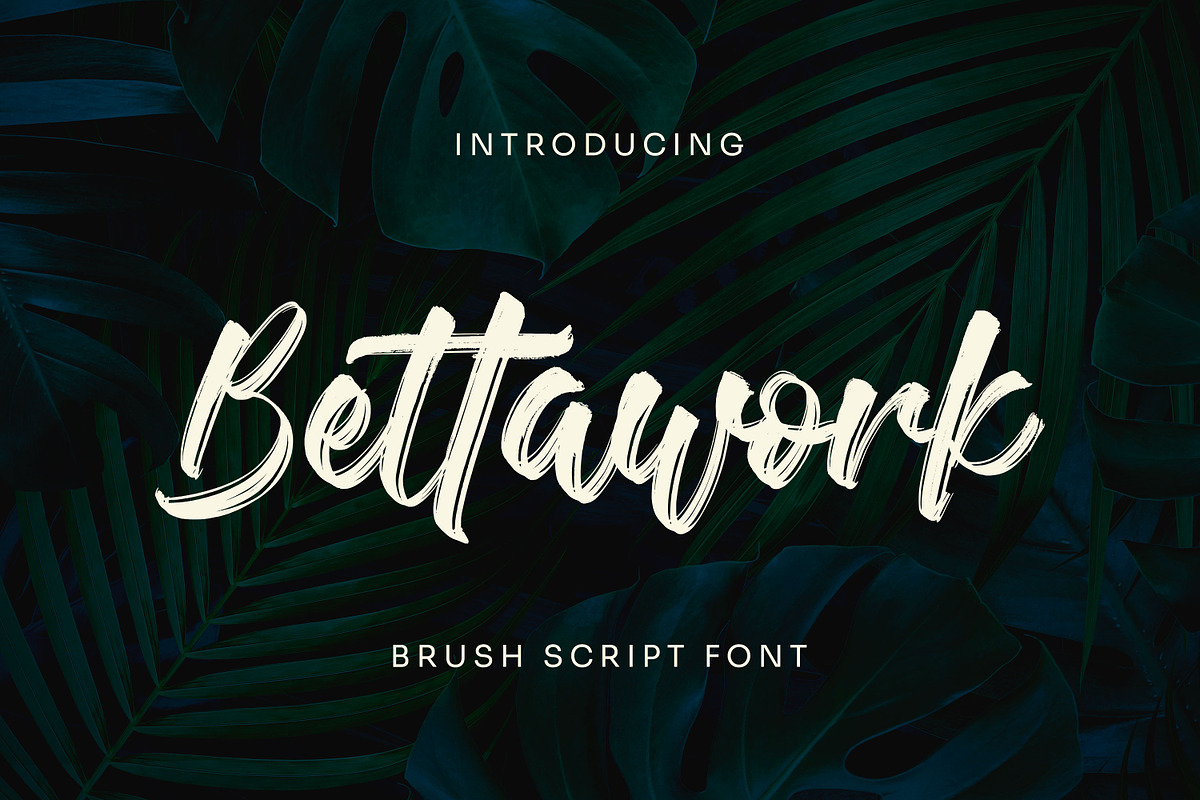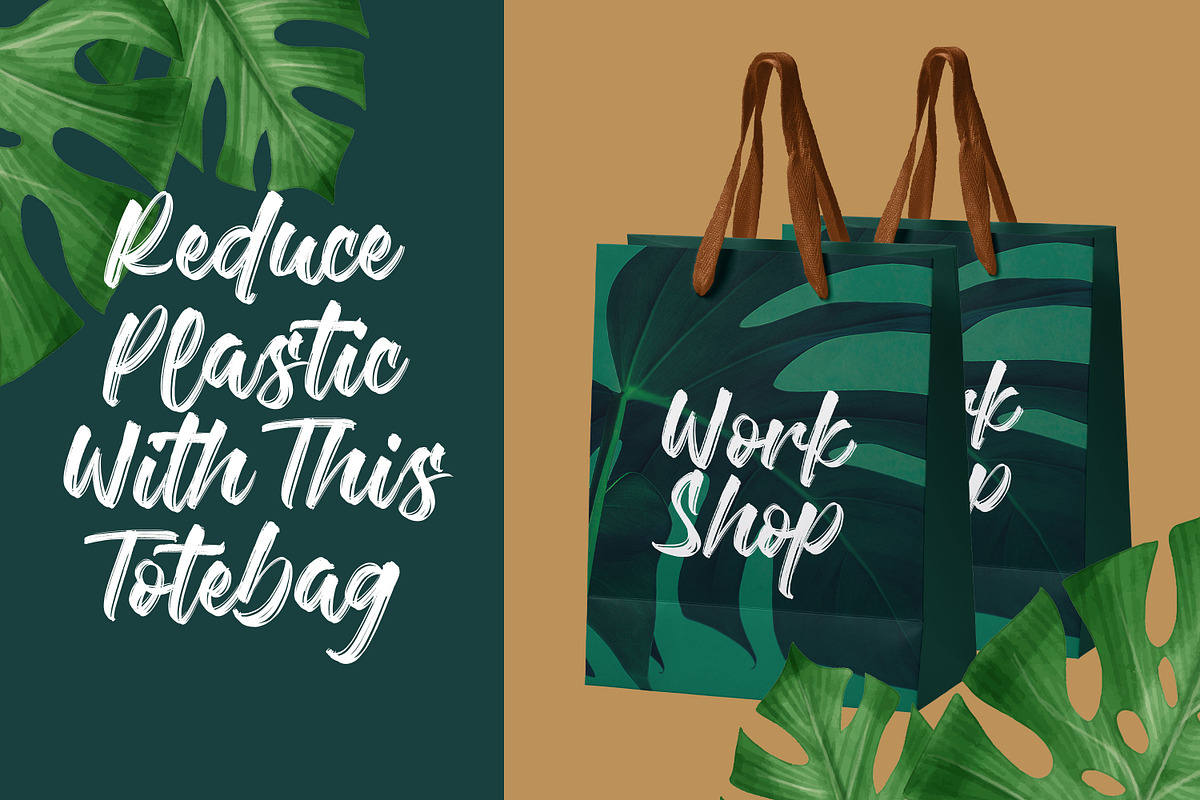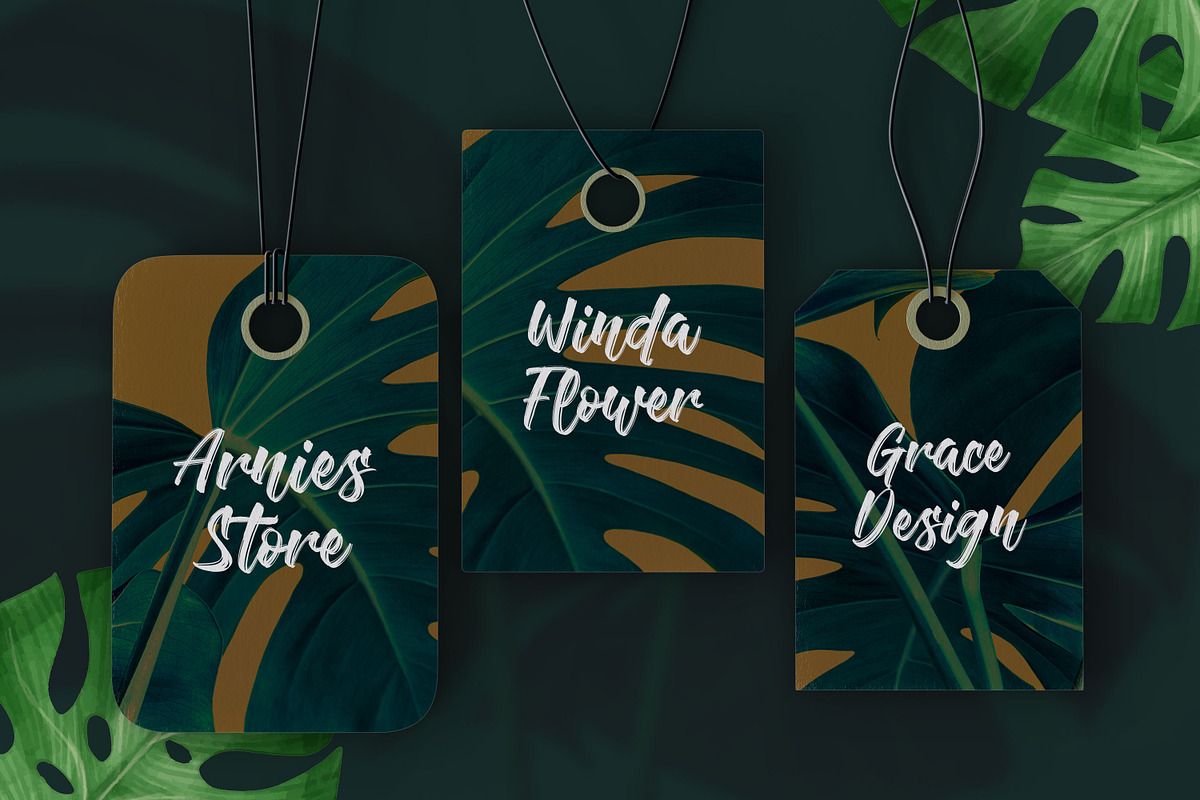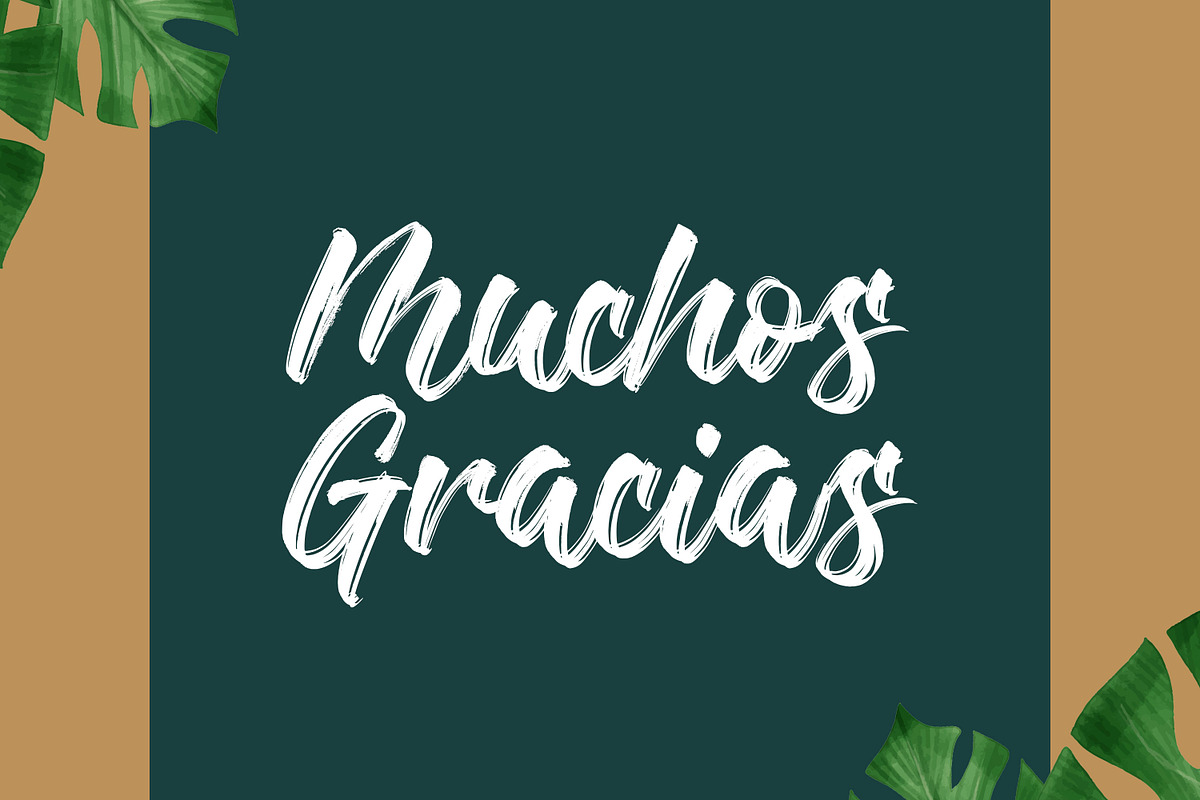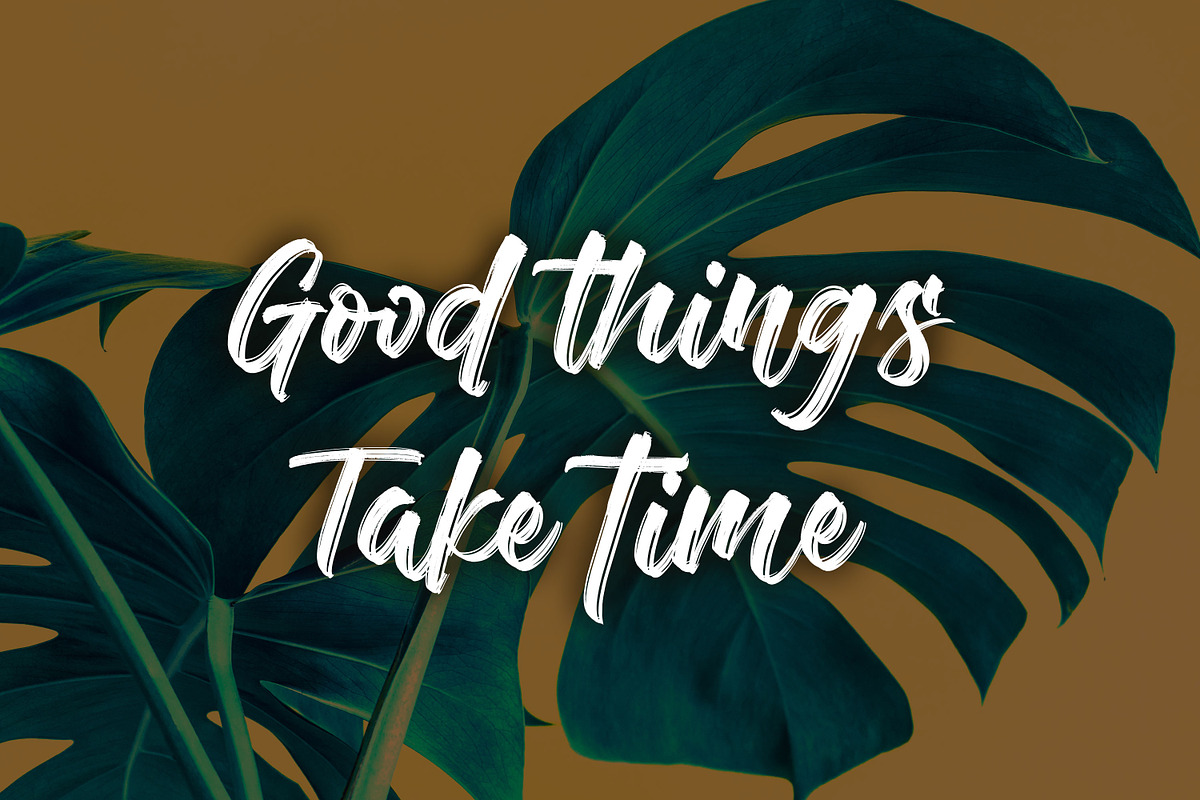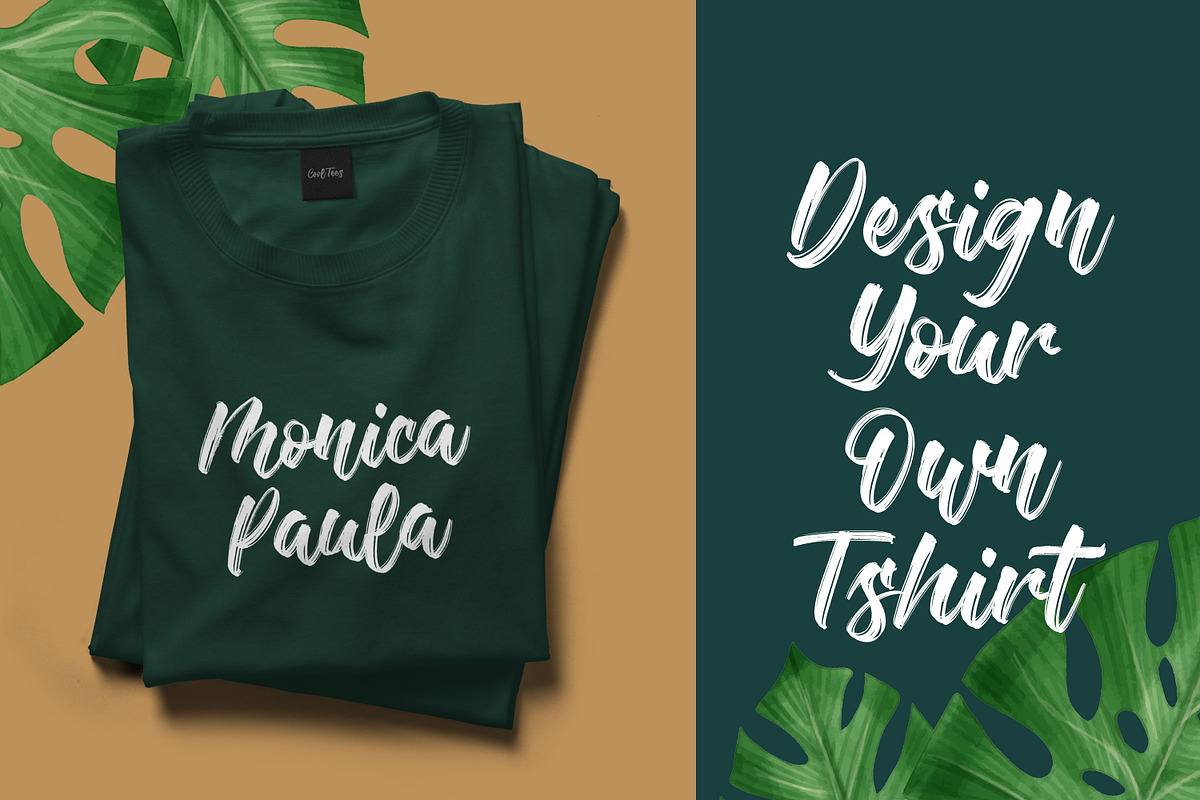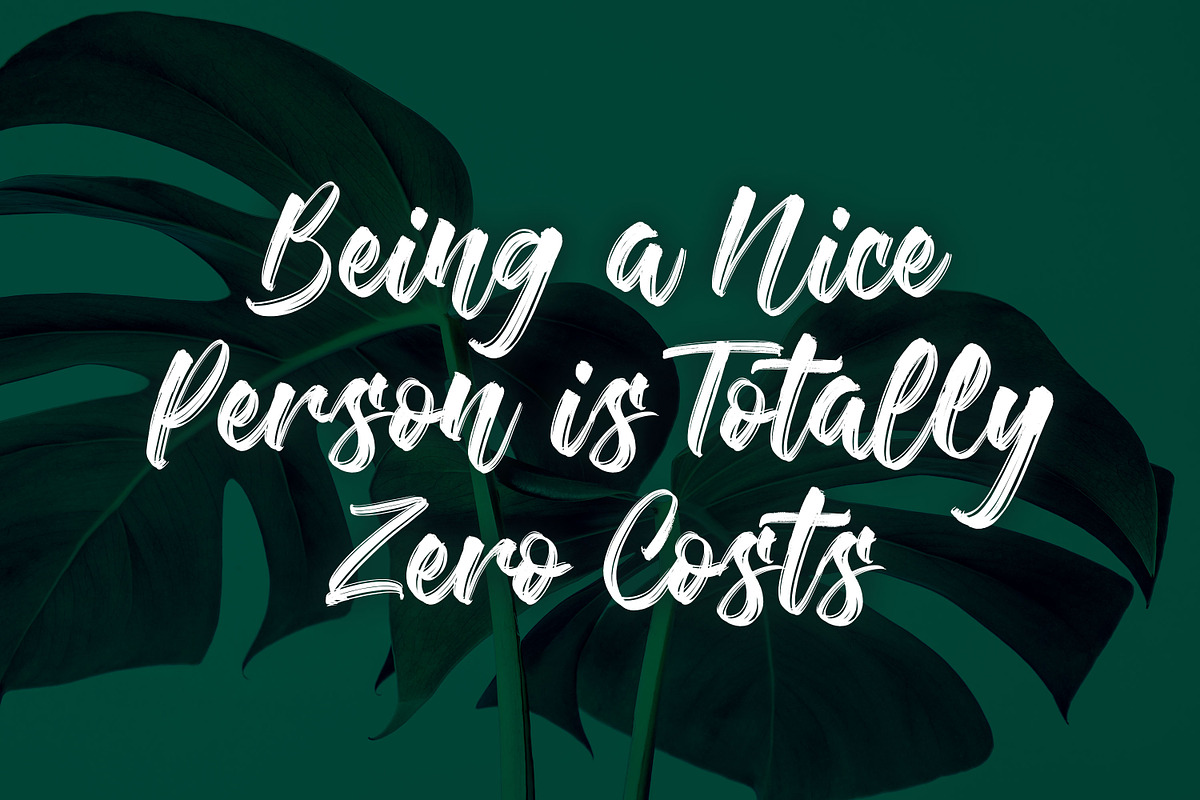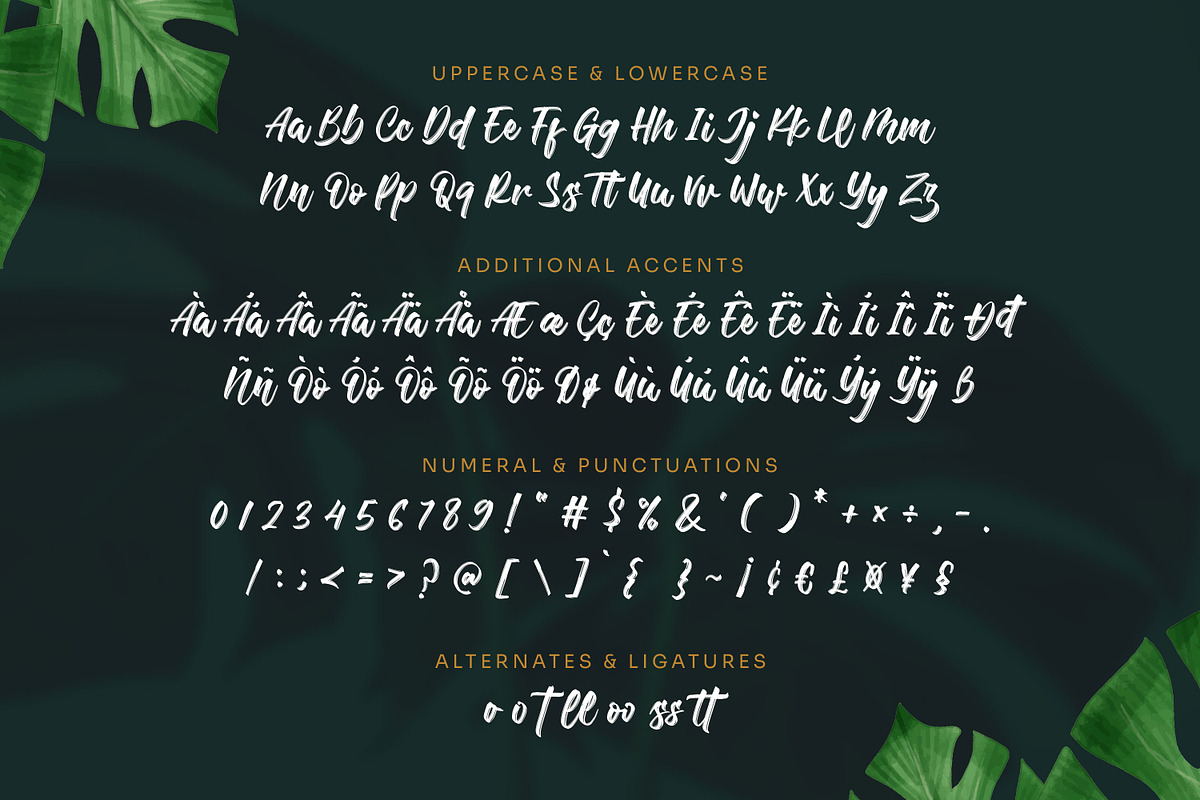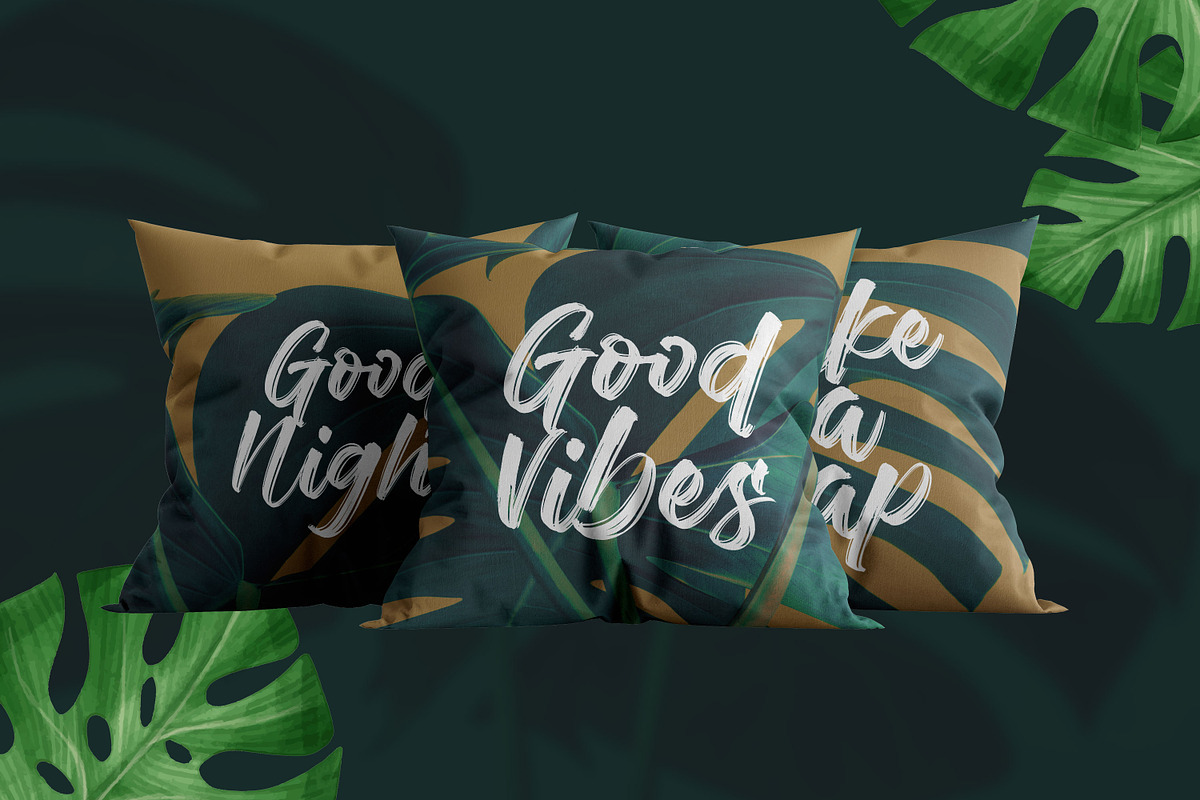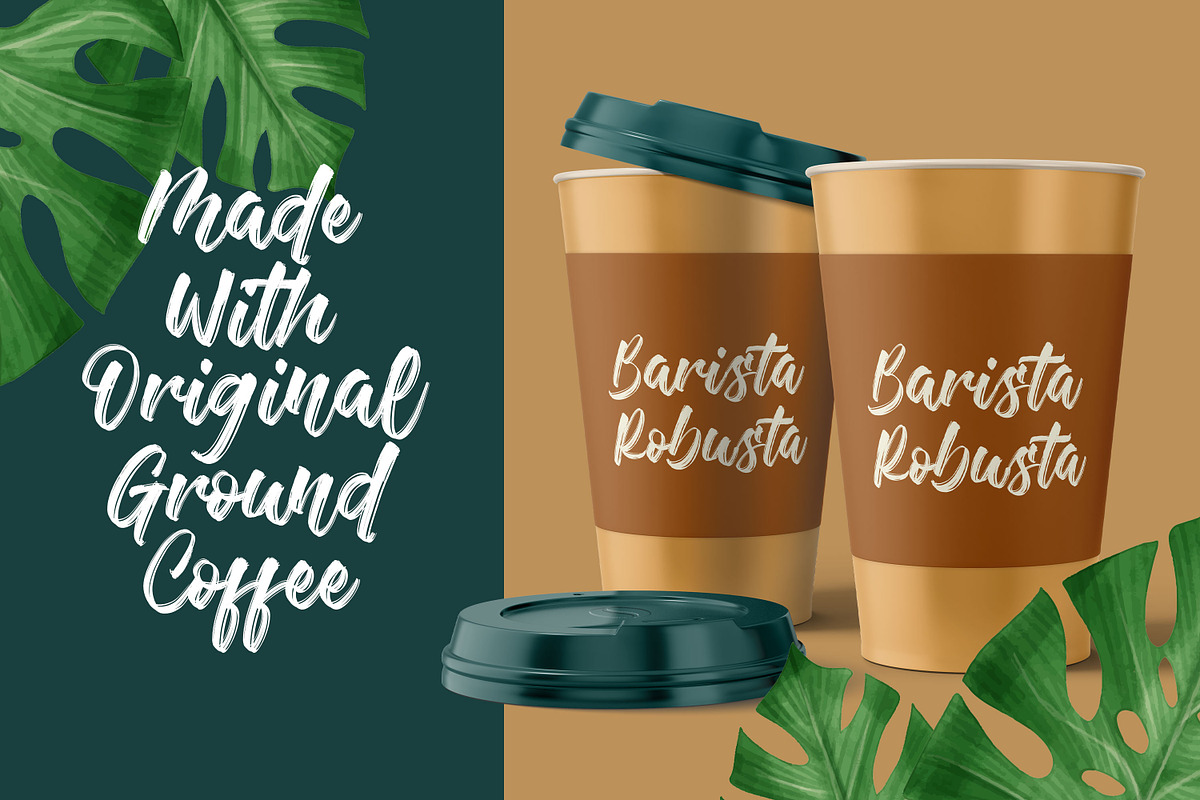
Bettawork - Brush Script Bold
Introducing Bettawork - Brush Script Bold is a Authentic brush script that is written casually and quickly. Letters are made with brushes on paper. Then scanned and carefully drawn into vector format. That is why Bettawork has charming, authentic and relaxed characteristic more natural look to your text with a more natural look to your text. You can activate Ligature OpenType panel to make these two styles. It also has many alternatives and underlines that make your text and design more interesting.Crash Soul is perfect for homeware designs,branding projects, Logo design, Quotes product packaging
- Alternate Glyphs